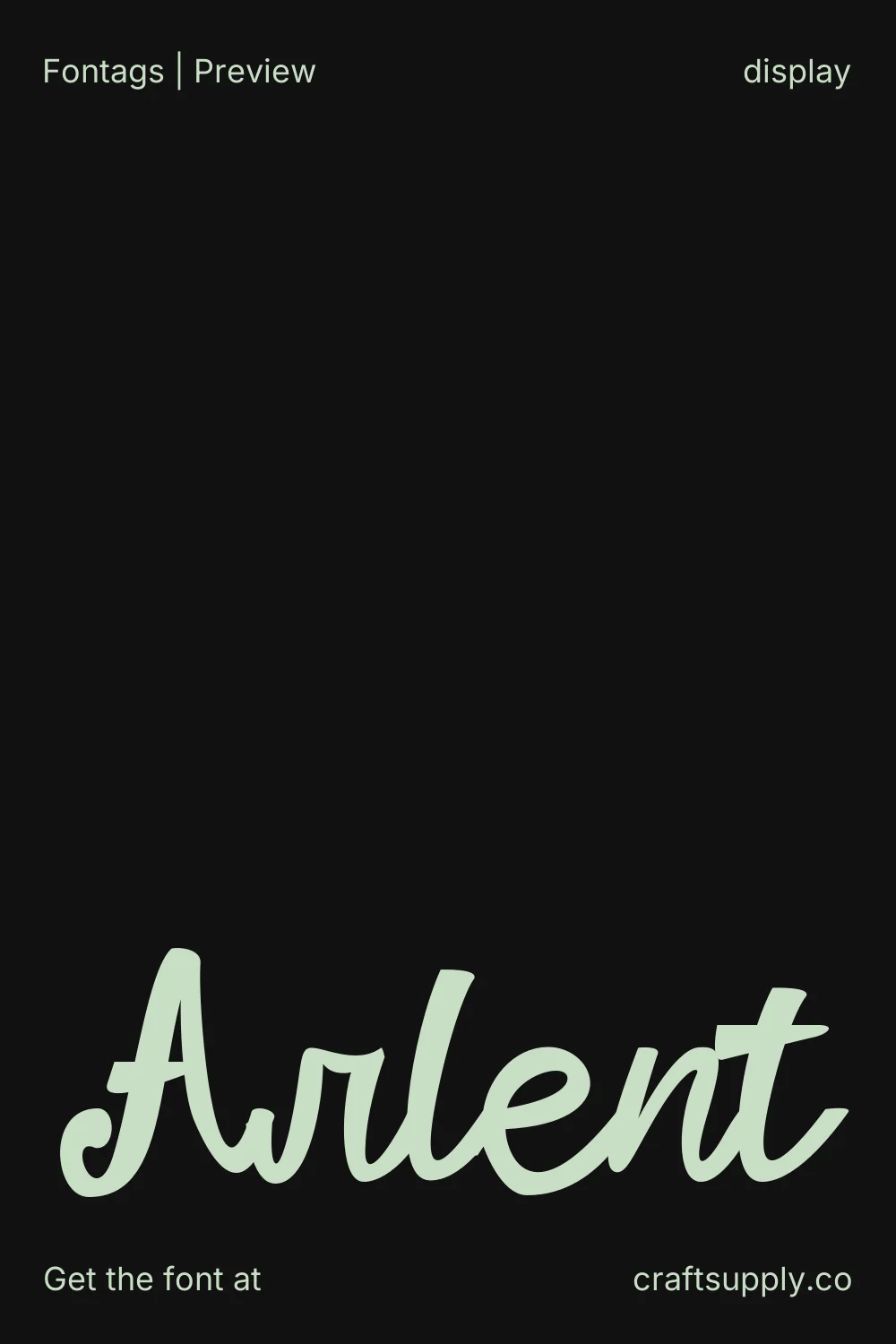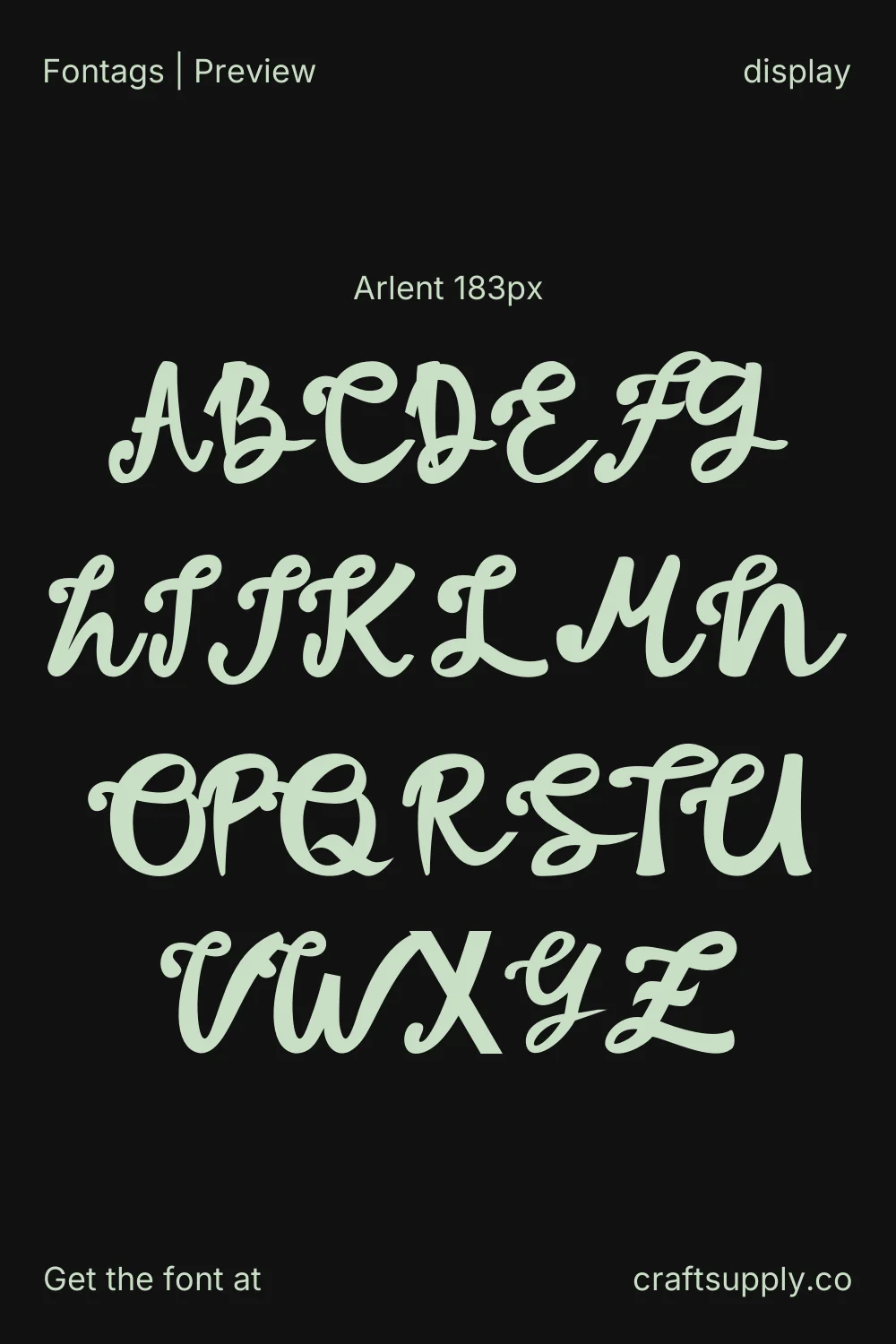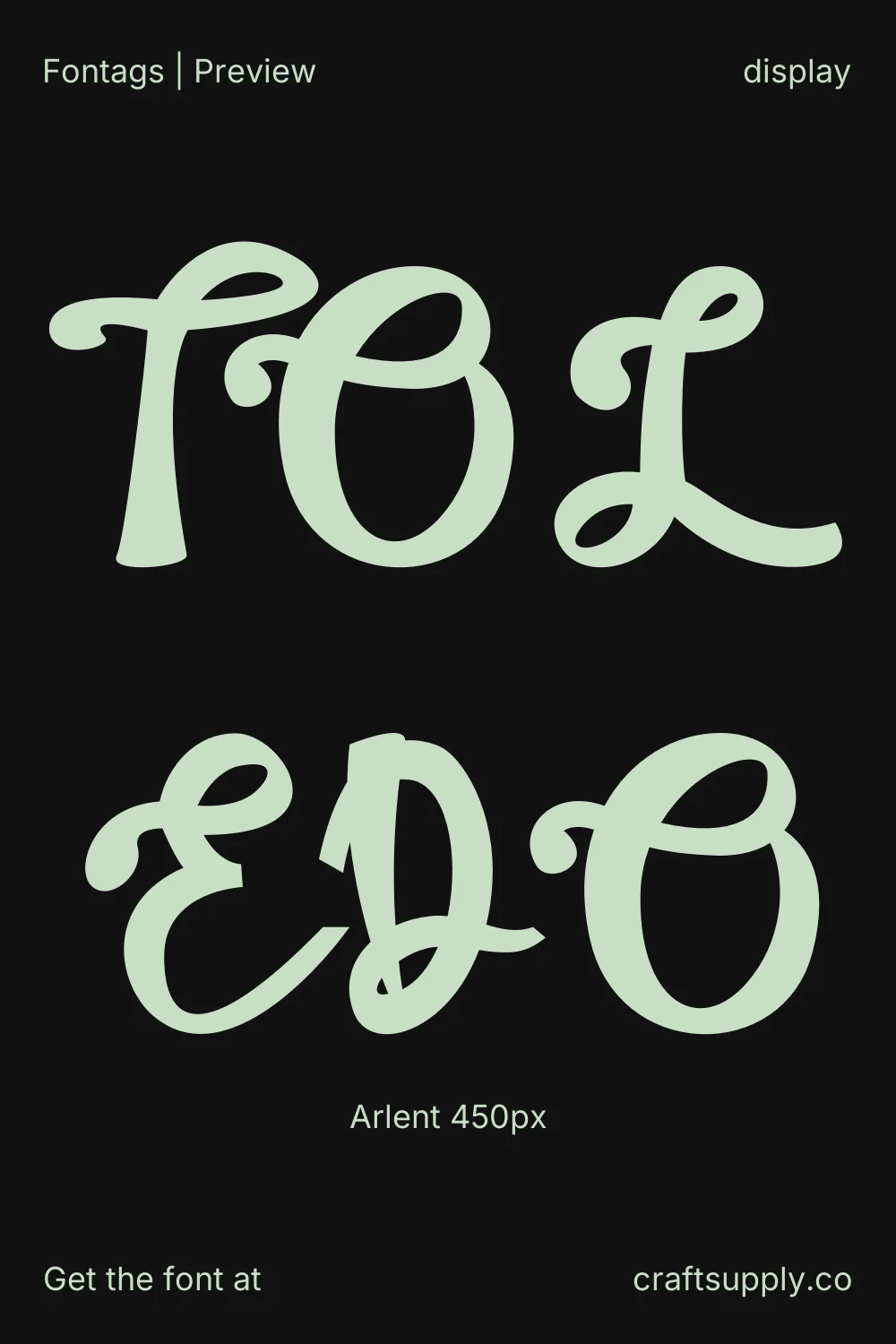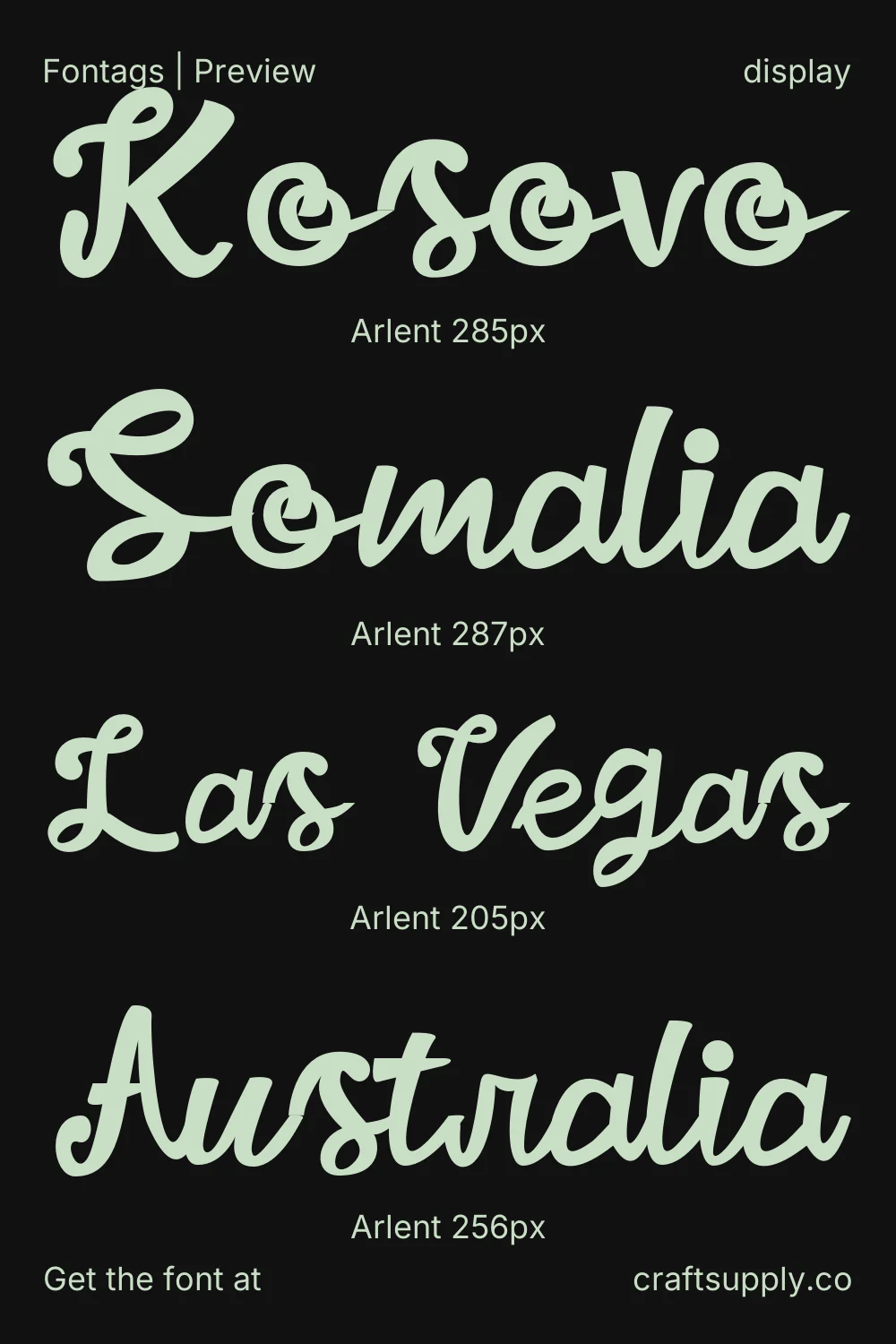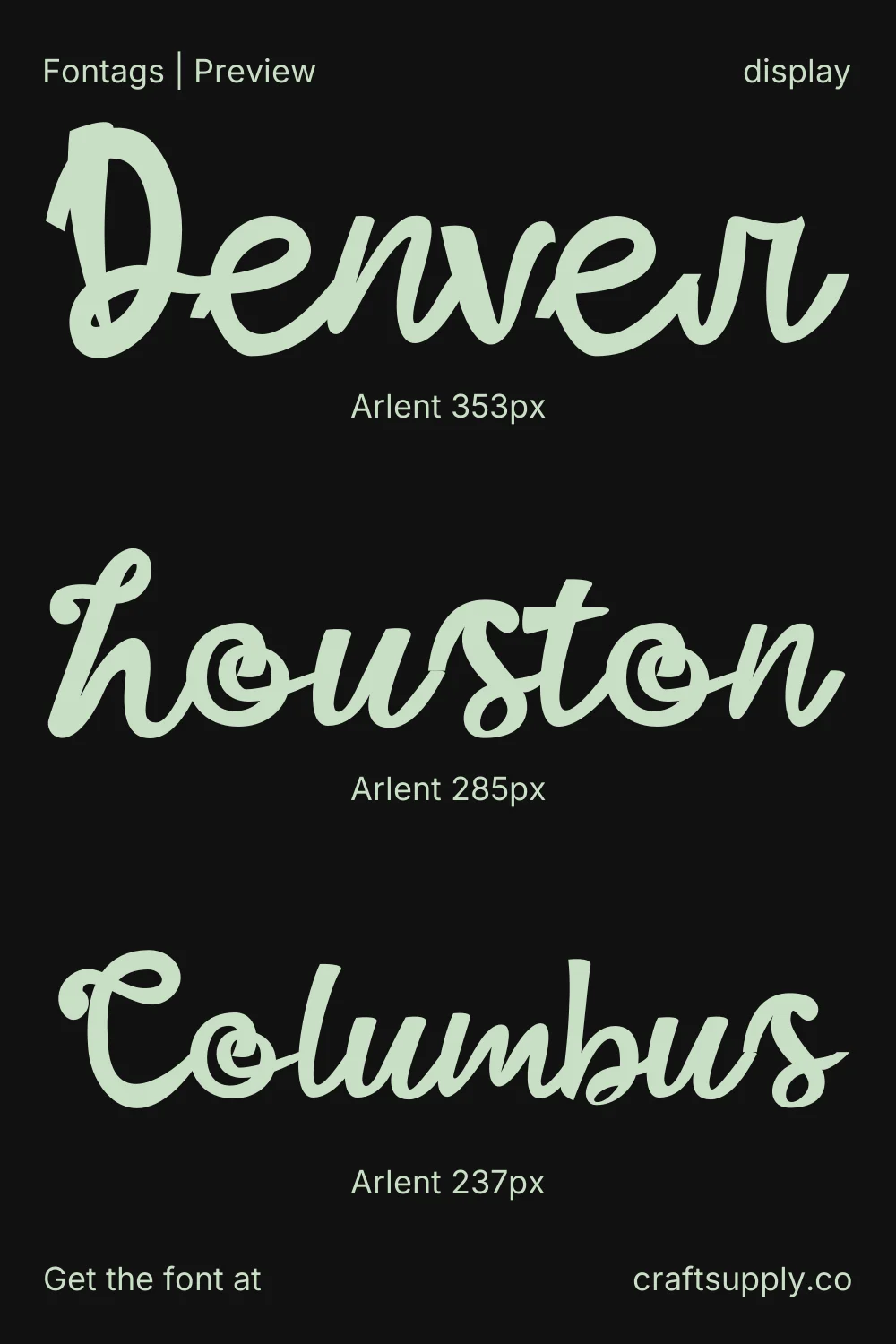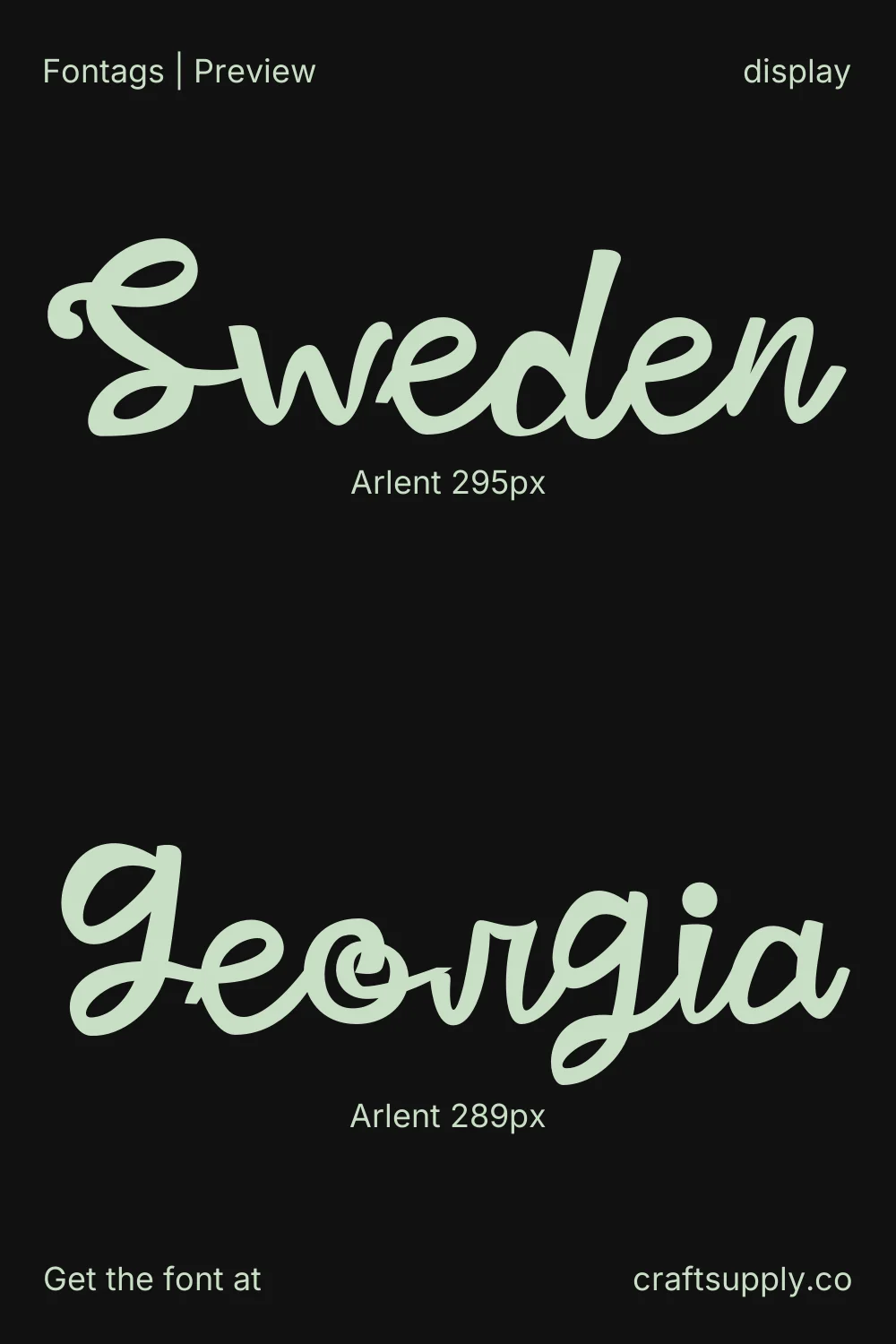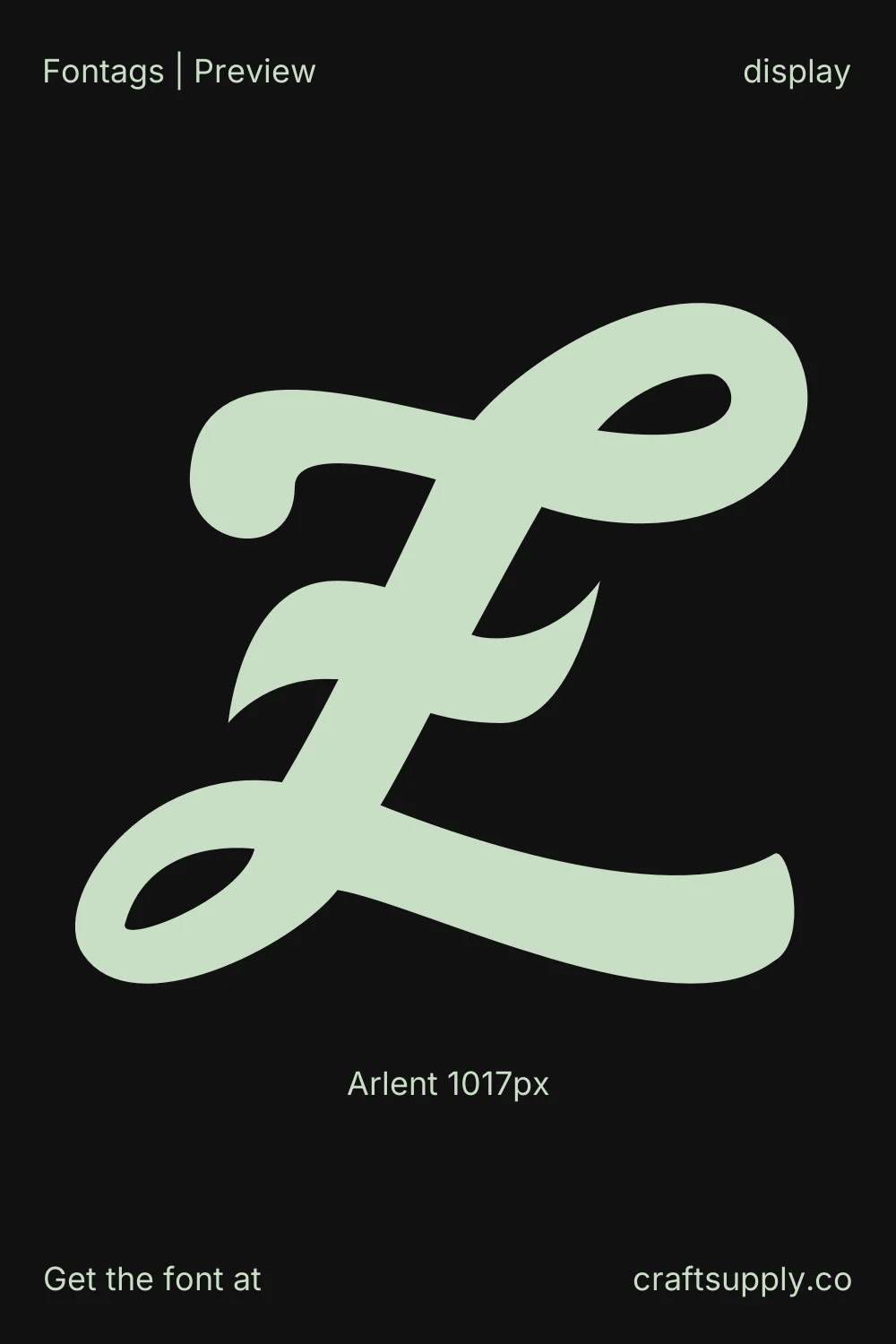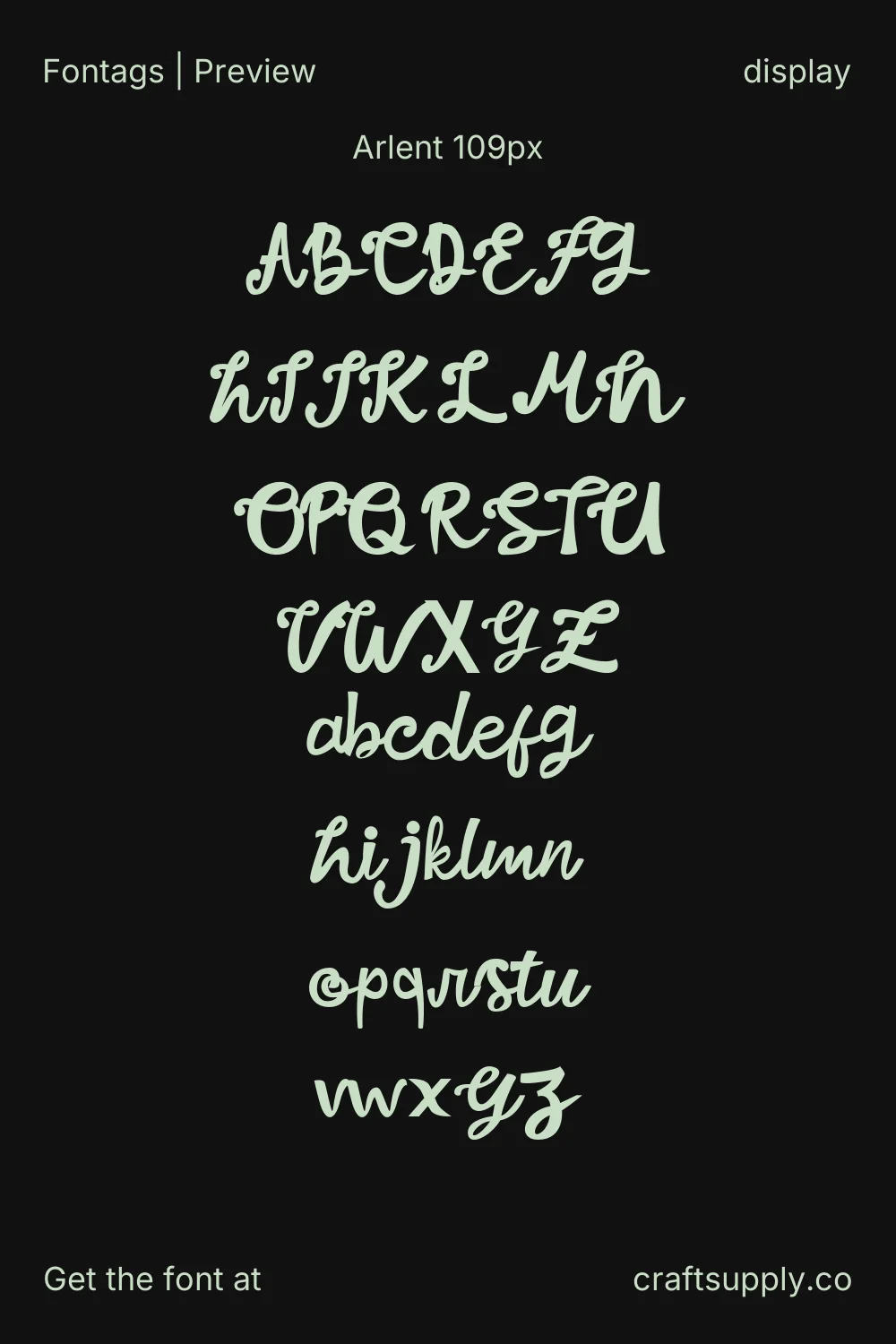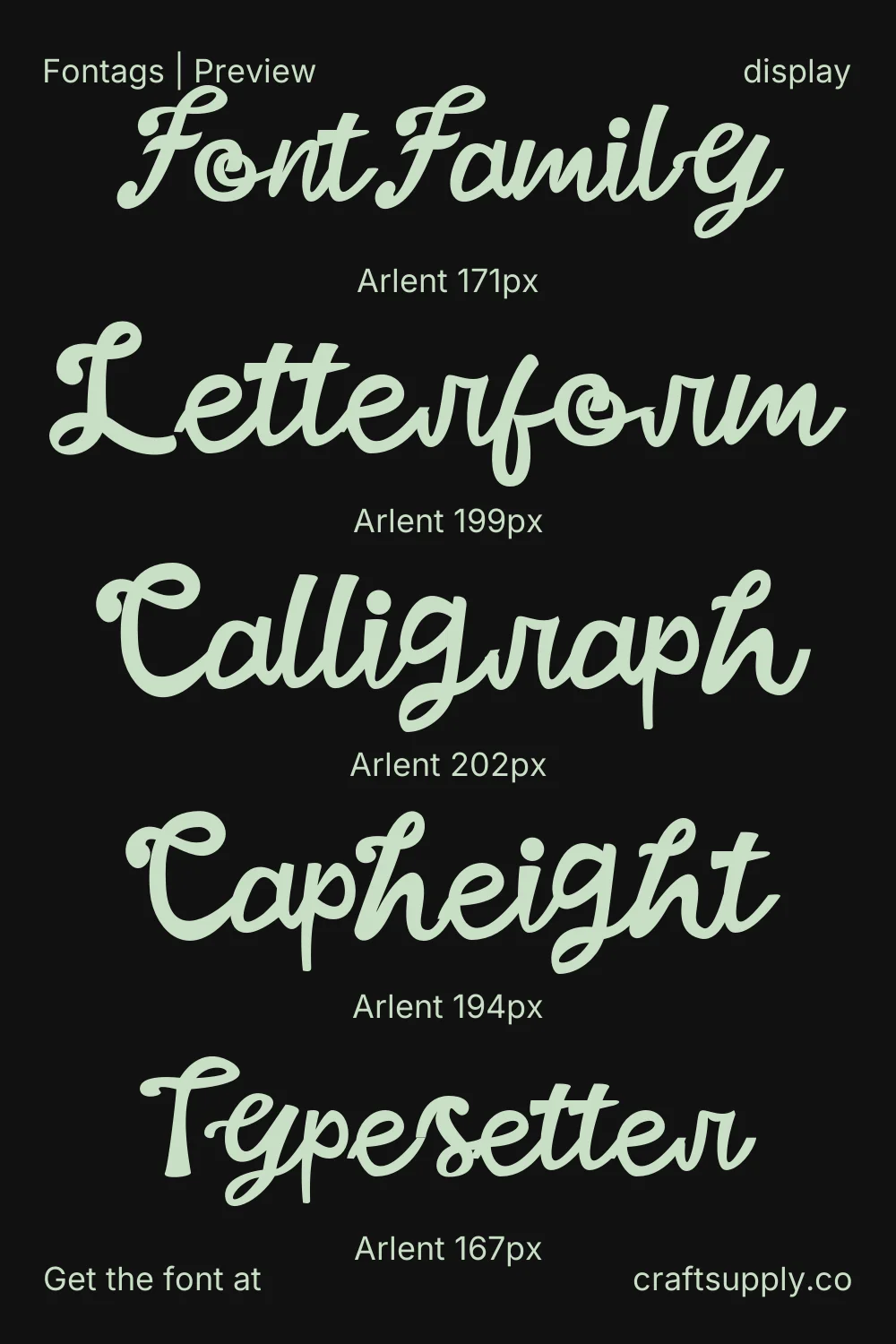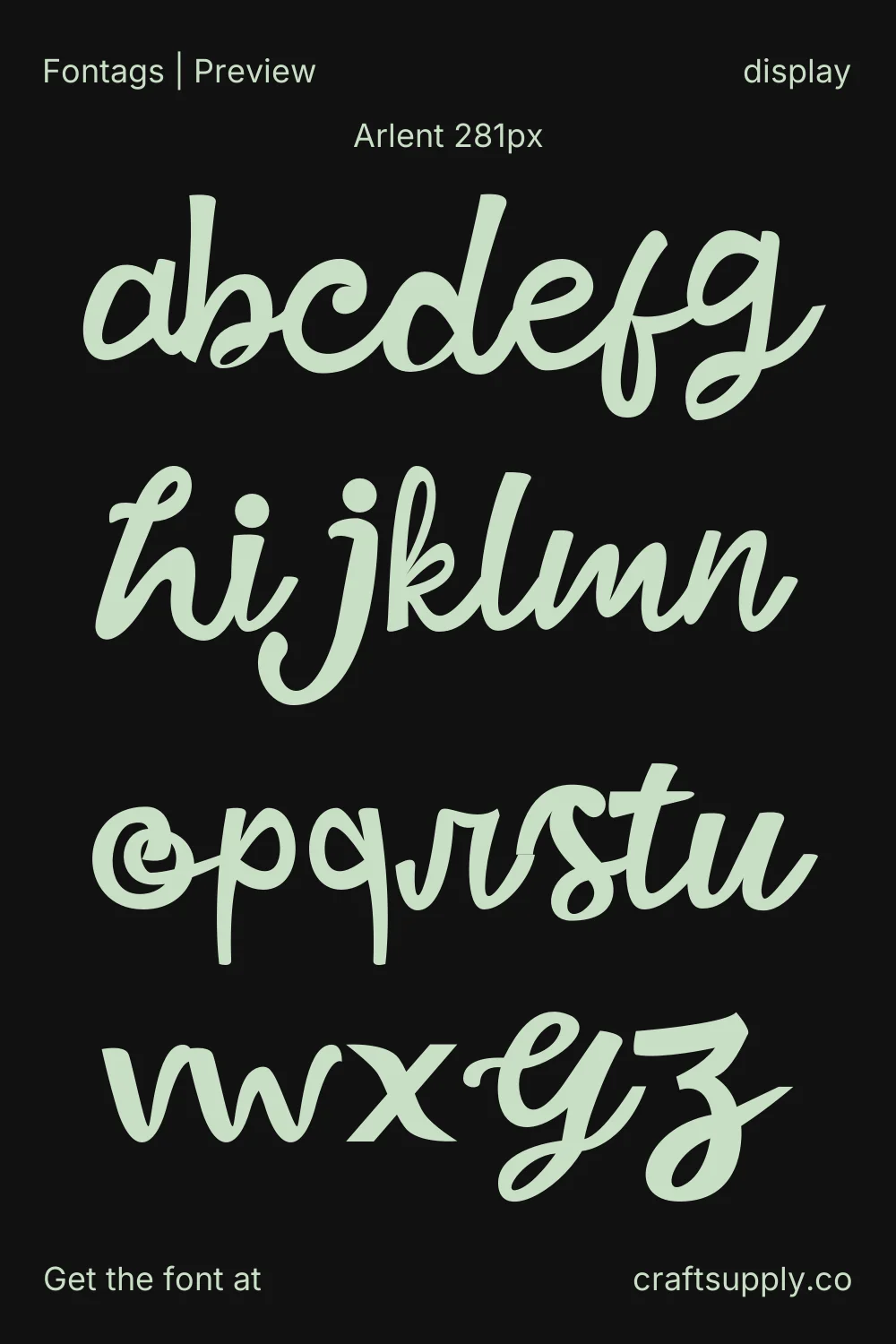
Arlent
Arlent is a joyful and whimsical script font designed specifically for children's projects. Its flowing, playful letterforms capture youthful innocence and energy, making it ideal for children's books, educational materials, playful packaging, and any design aimed at young audiences. The font radiates cheerfulness and creativity, bringing a sense of fun and imagination to every project.